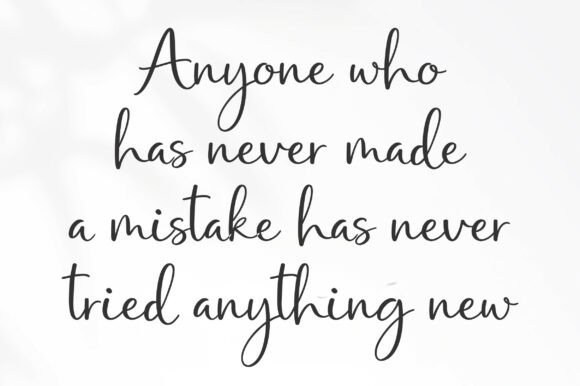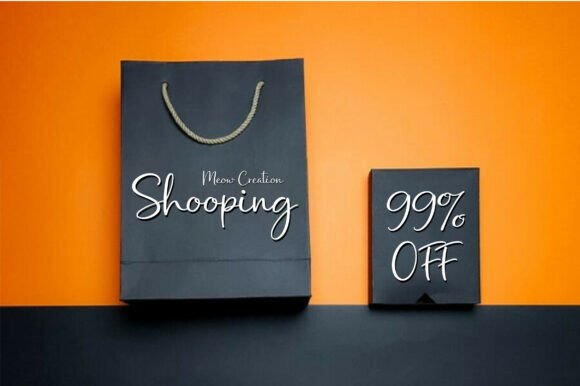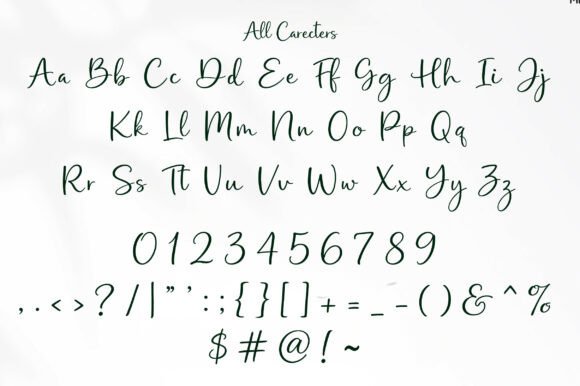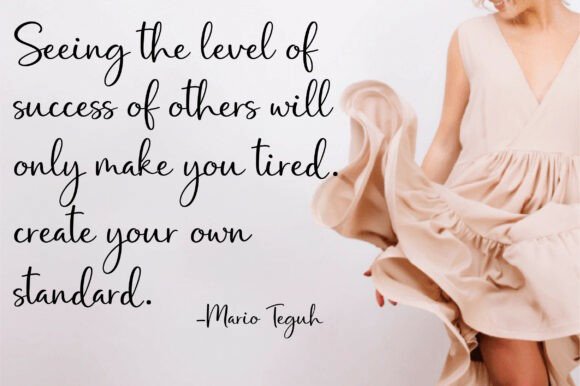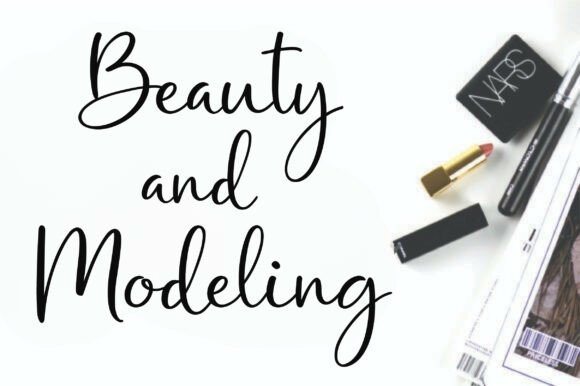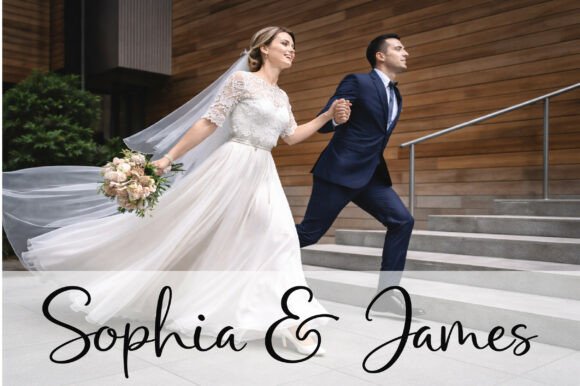
Introduction to Midnight Script Font
Midnight Script is a modern handwritten script font with smooth flow and elegant curves.
Effortless and stylish, it adds a warm, personal touch to any project Perfect for branding, quotes, beauty designs, social media, invitations, and packaging.
Key Features of Midnight Script Font
Why Choose Midnight Script Font?
Midnight Script Font offers exceptional quality and versatility, making it a valuable addition to your design toolkit. Whether you’re creating for personal projects or commercial use, Midnight Script Font delivers professional results.